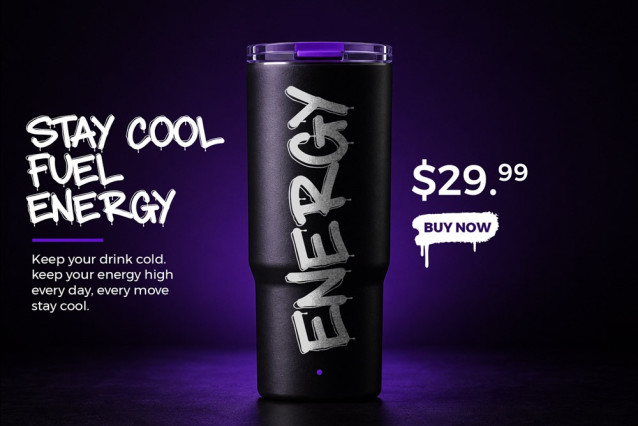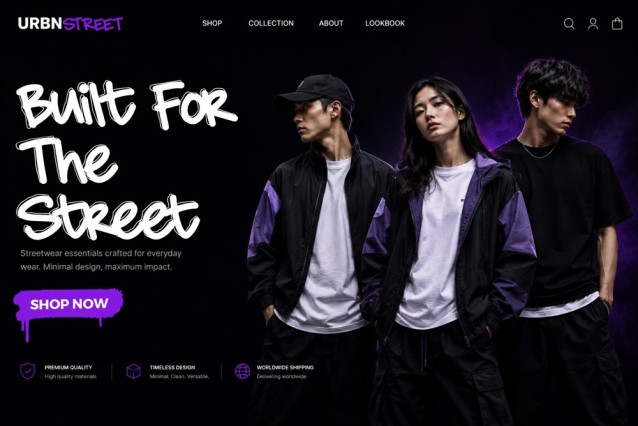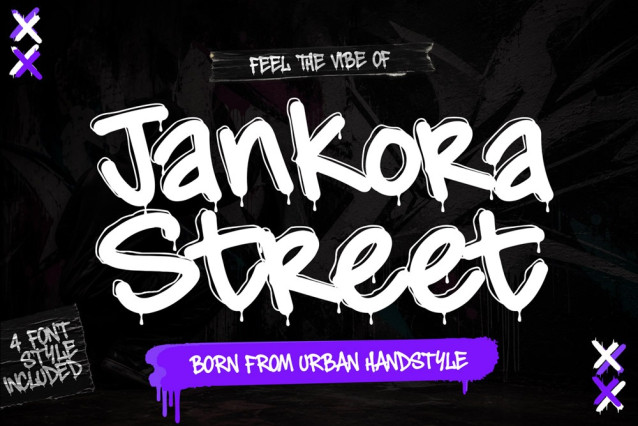
Jankora Street Font
Jankora Street Font is a powerful dripping graffiti font inspired by authentic urban street culture, modern graffiti lettering, underground hip hop aesthetics, and bold decorative typography trends. Designed with expressive monoline strokes and dripping graffiti details, this decorative street font delivers an energetic visual identity that instantly grabs attention in any creative project.
This graffiti style font combines bold street lettering with modern decorative elements, making it perfect for designers, creators, apparel brands, musicians, gamers, streamers, content creators, and digital artists who want to create strong urban visuals. Whether you are creating streetwear branding, graffiti logo designs, poster artwork, music covers, YouTube thumbnails, esports graphics, social media banners, stickers, or merchandise, Jankora Street provides the authentic street typography style needed to elevate your design.
The dripping graffiti font style gives every letter a handcrafted urban character while maintaining readability and flexibility. Its monoline decorative structure creates a balanced combination between modern graffiti aesthetics and professional typography quality. This urban graffiti font is built to stand out on both digital and print projects, making it an essential asset for designers searching for a best-selling graffiti font with modern street appeal.